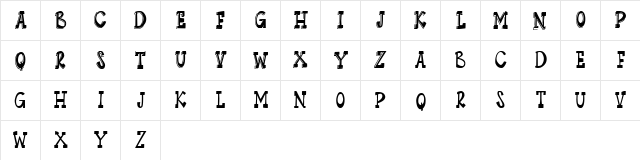
SharonsShadows Bold
Design Context for SharonsShadows Typeface
SharonsShadows brings ornamental detail and strong personality to headlines and identities, where visual impact matters more than quiet functionality. The heavy weight commands attention and anchors typographic hierarchies.
Font Pairing: Pair with a clean neutral sans-serif for body copy to let SharonsShadows's character lead without overwhelming the composition.
Pro Tip: Treat SharonsShadows as the centrepiece of your typographic hierarchy. One strong heading set in a decorative face can carry an entire layout.